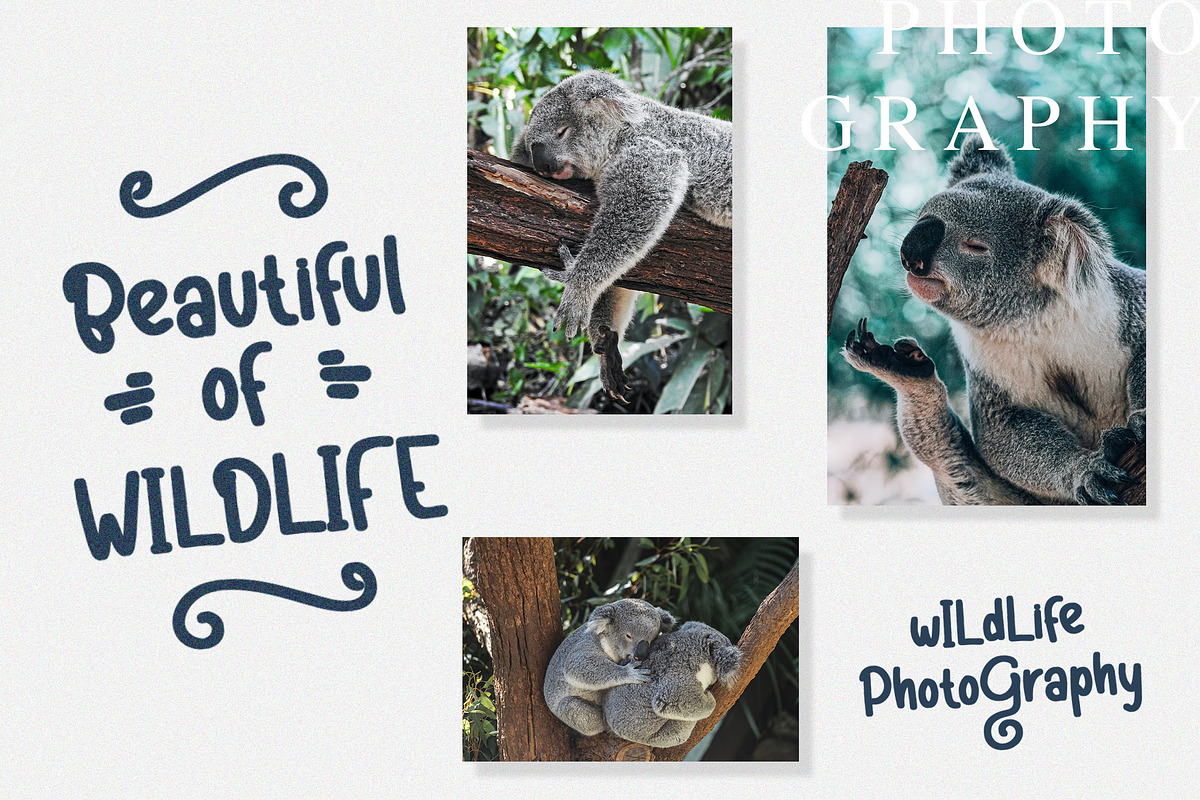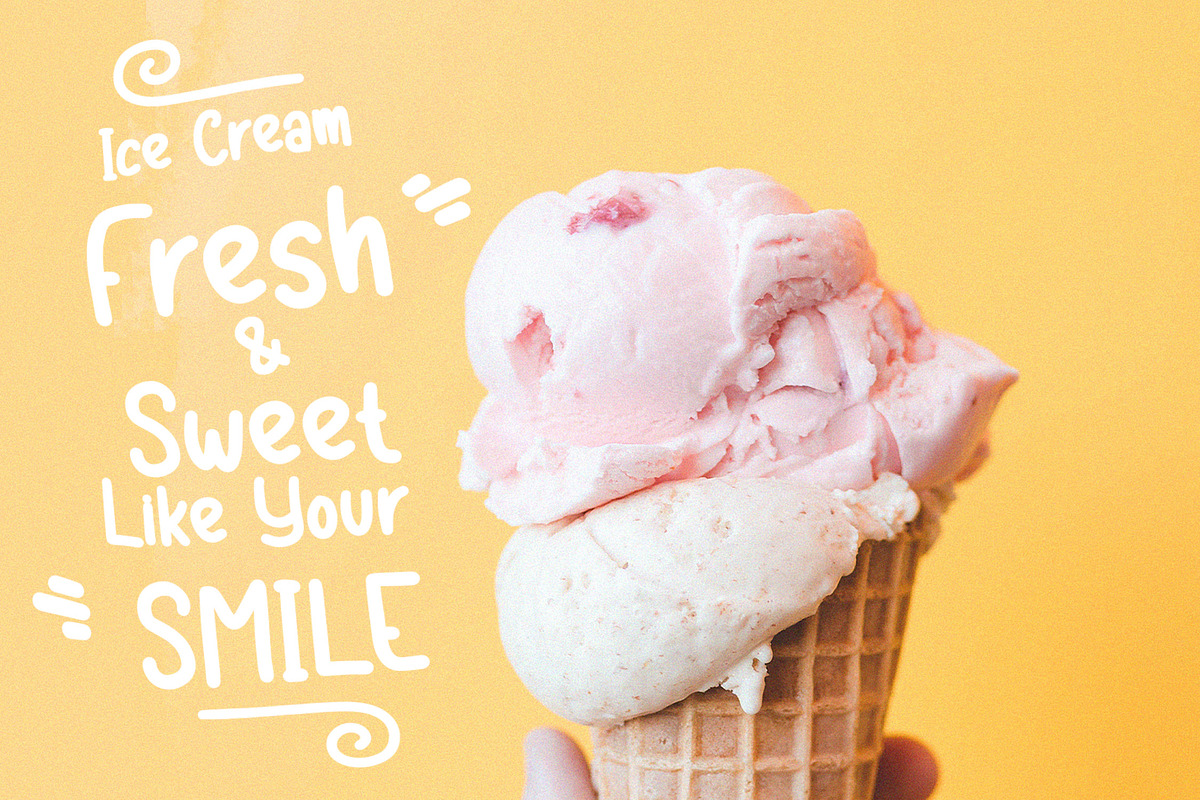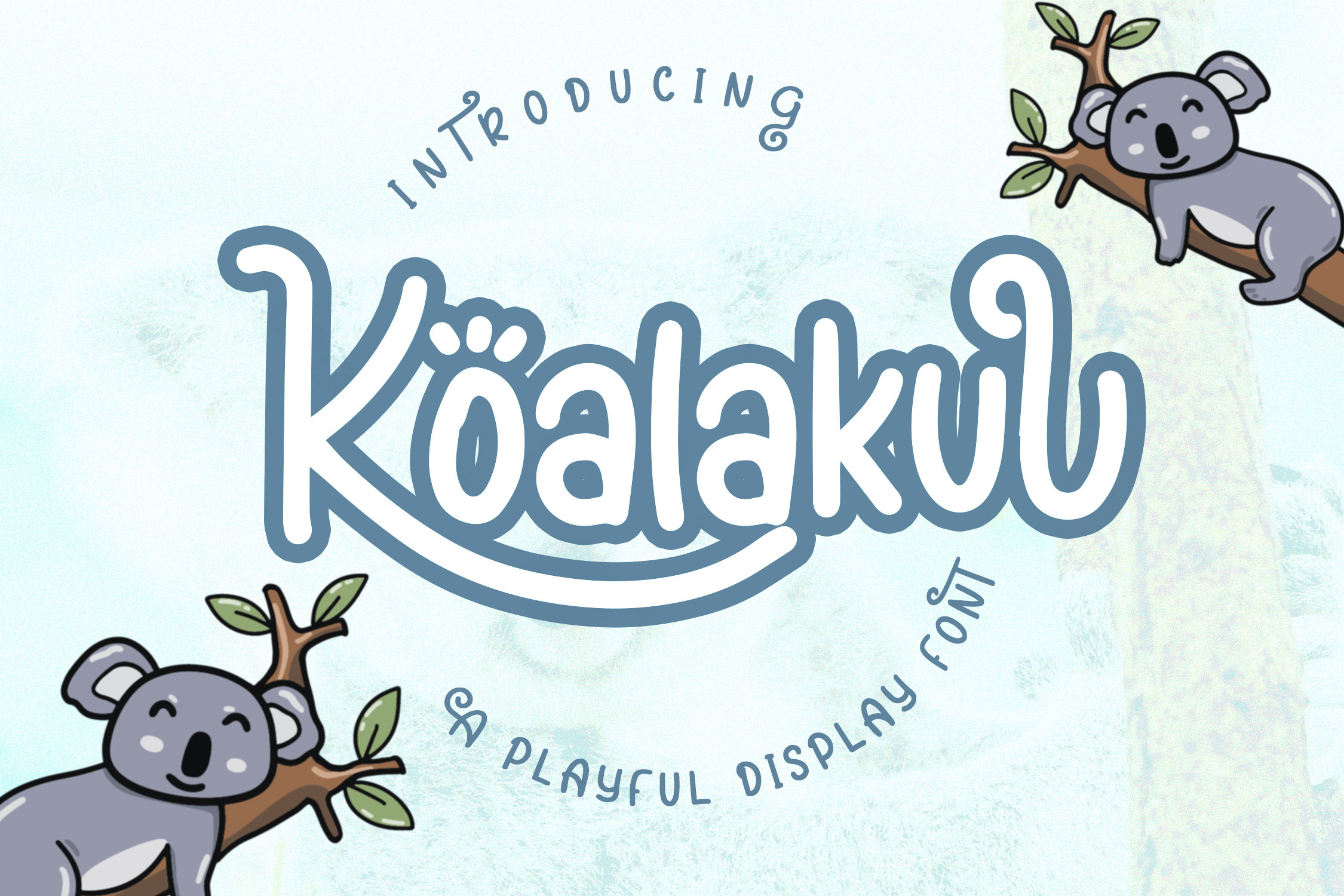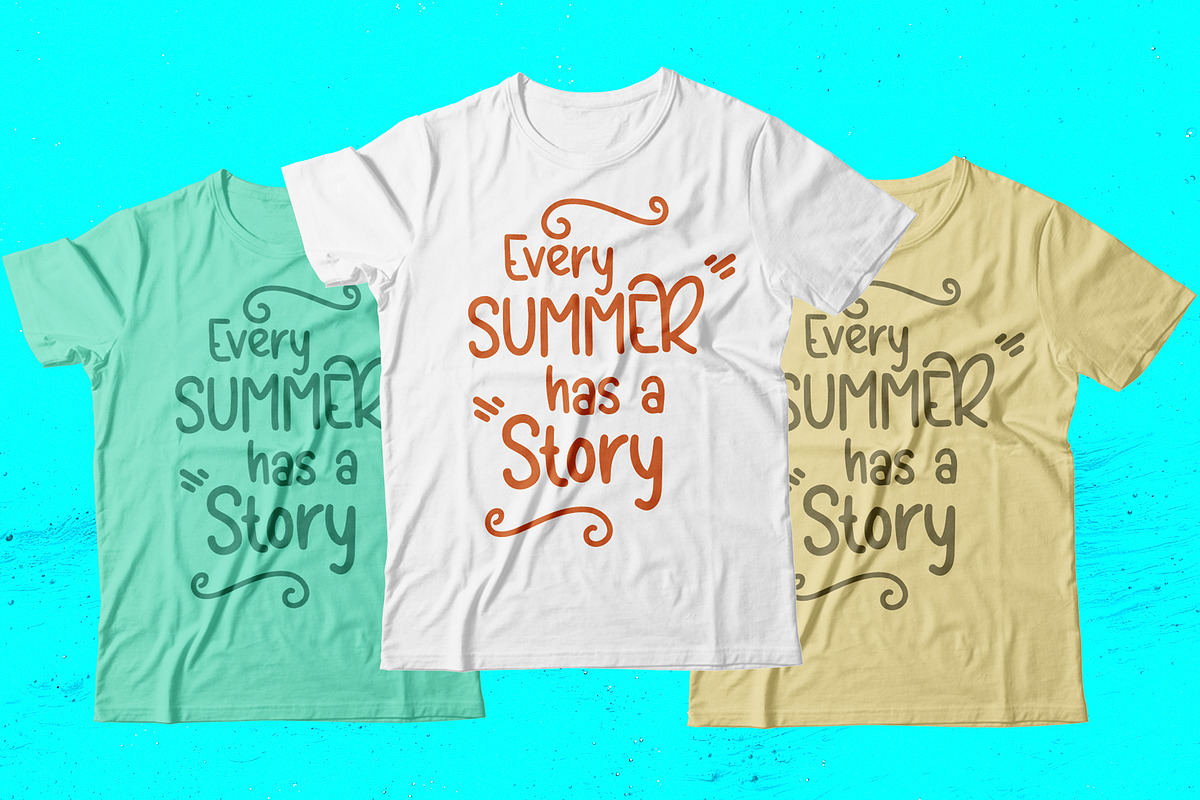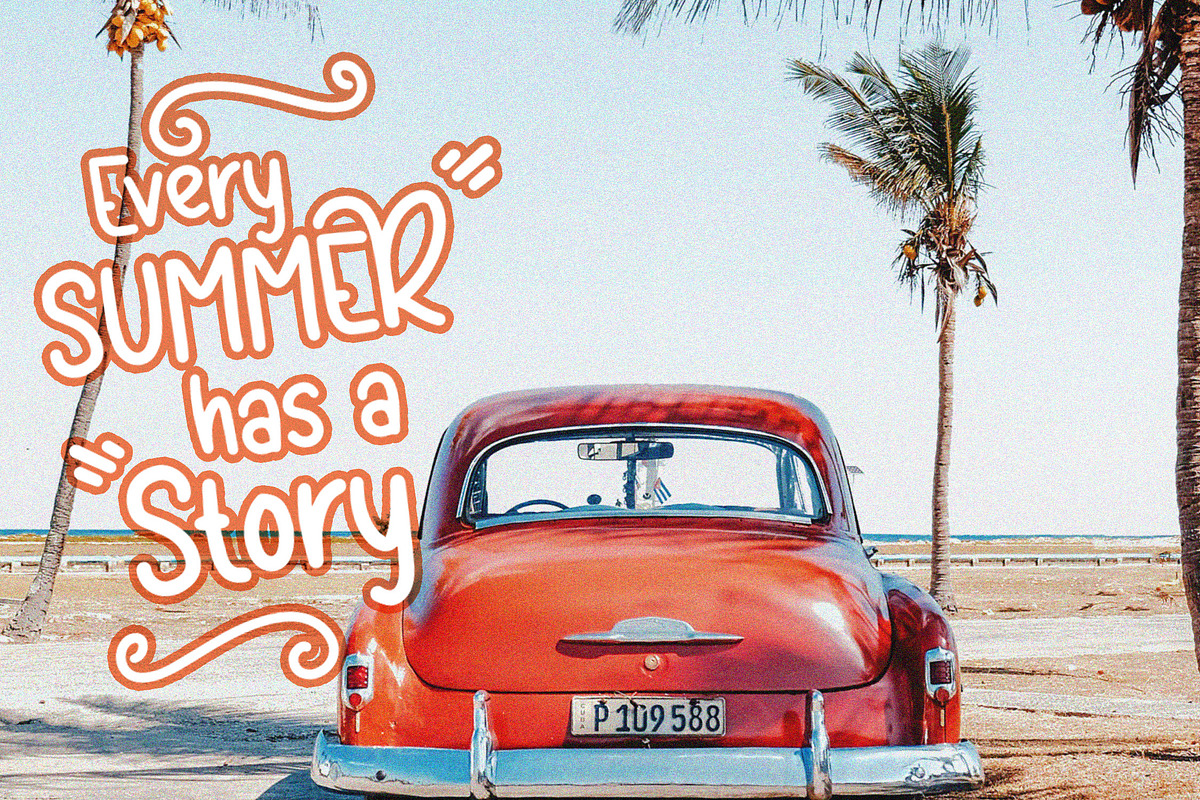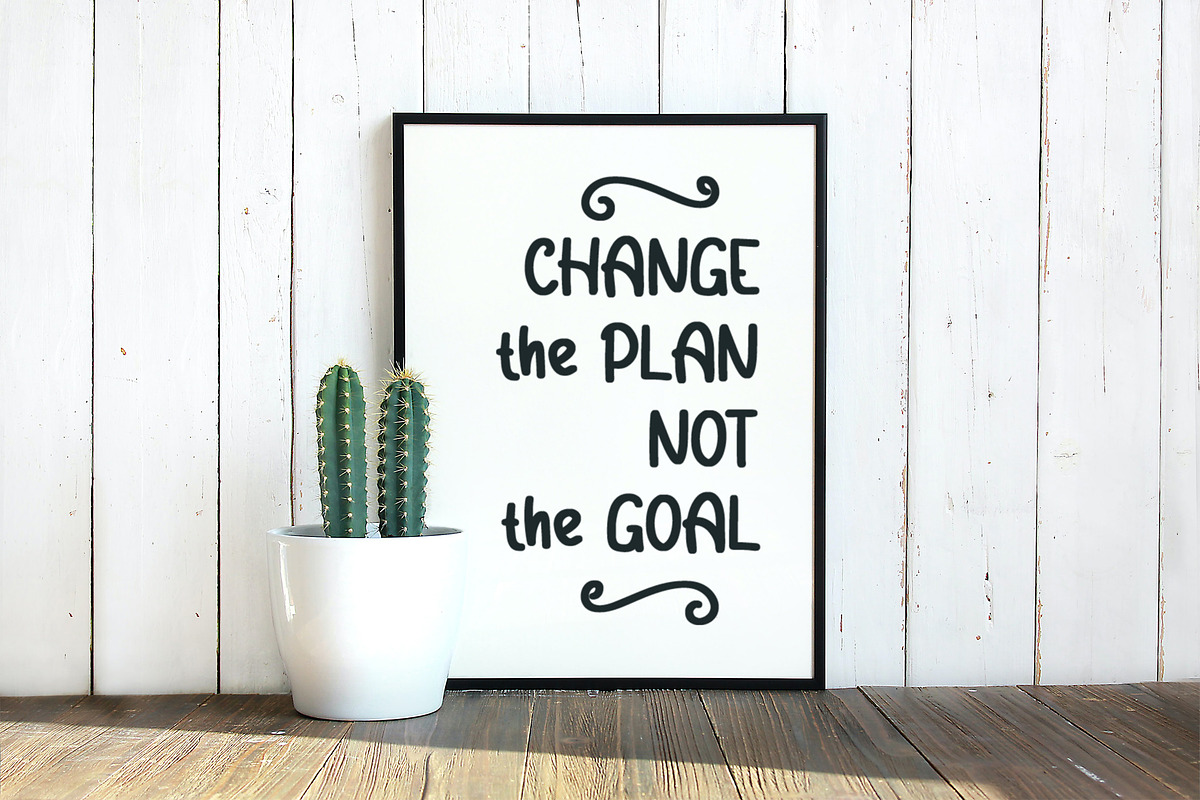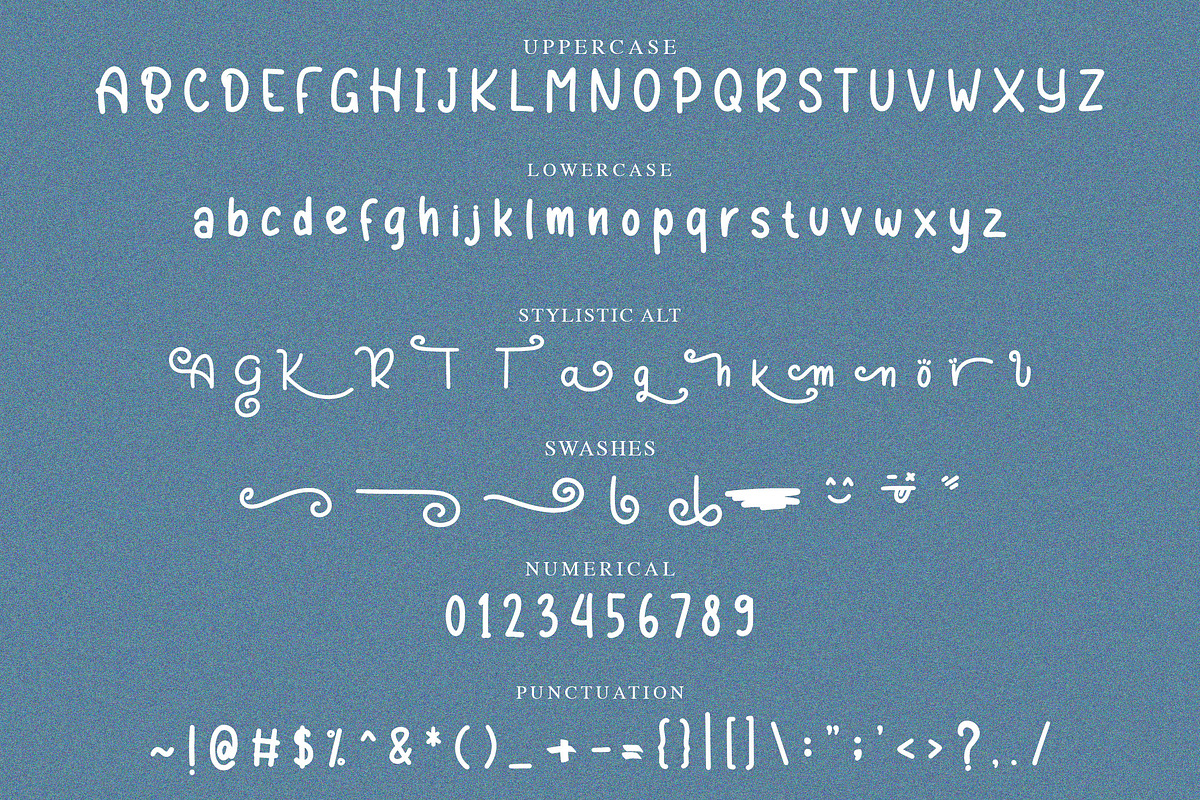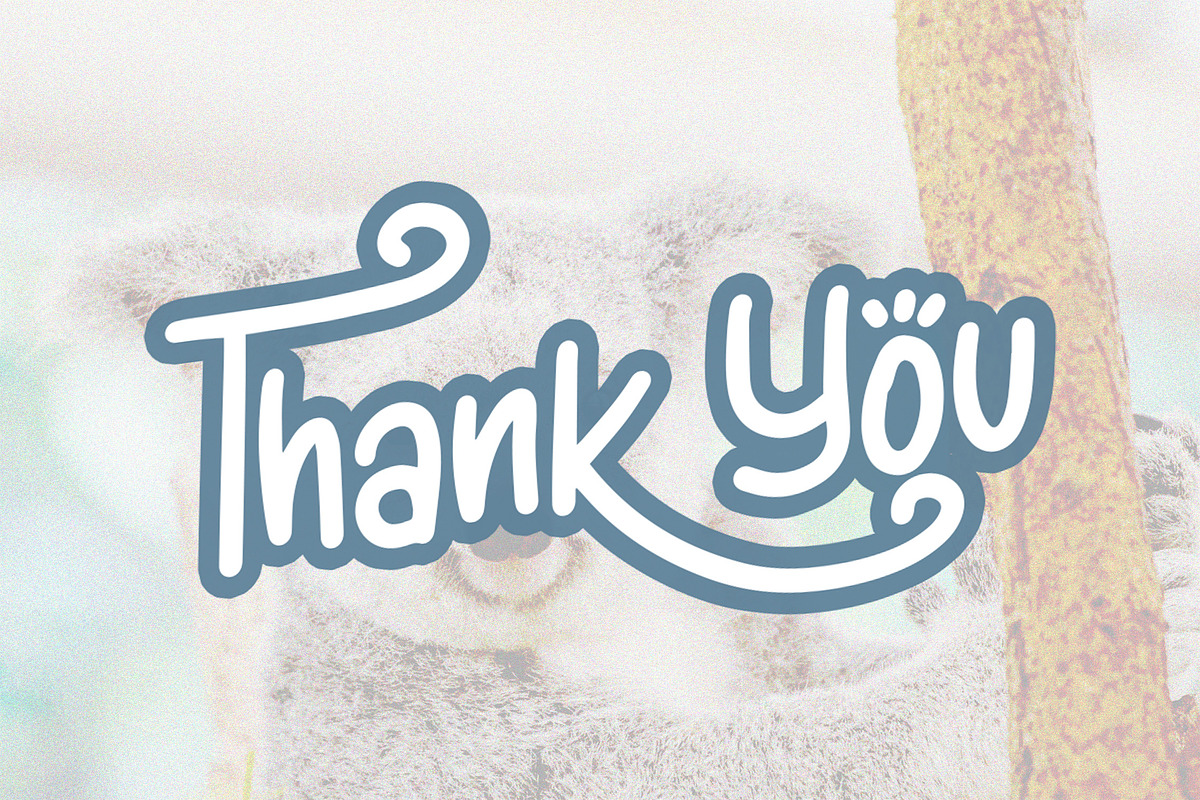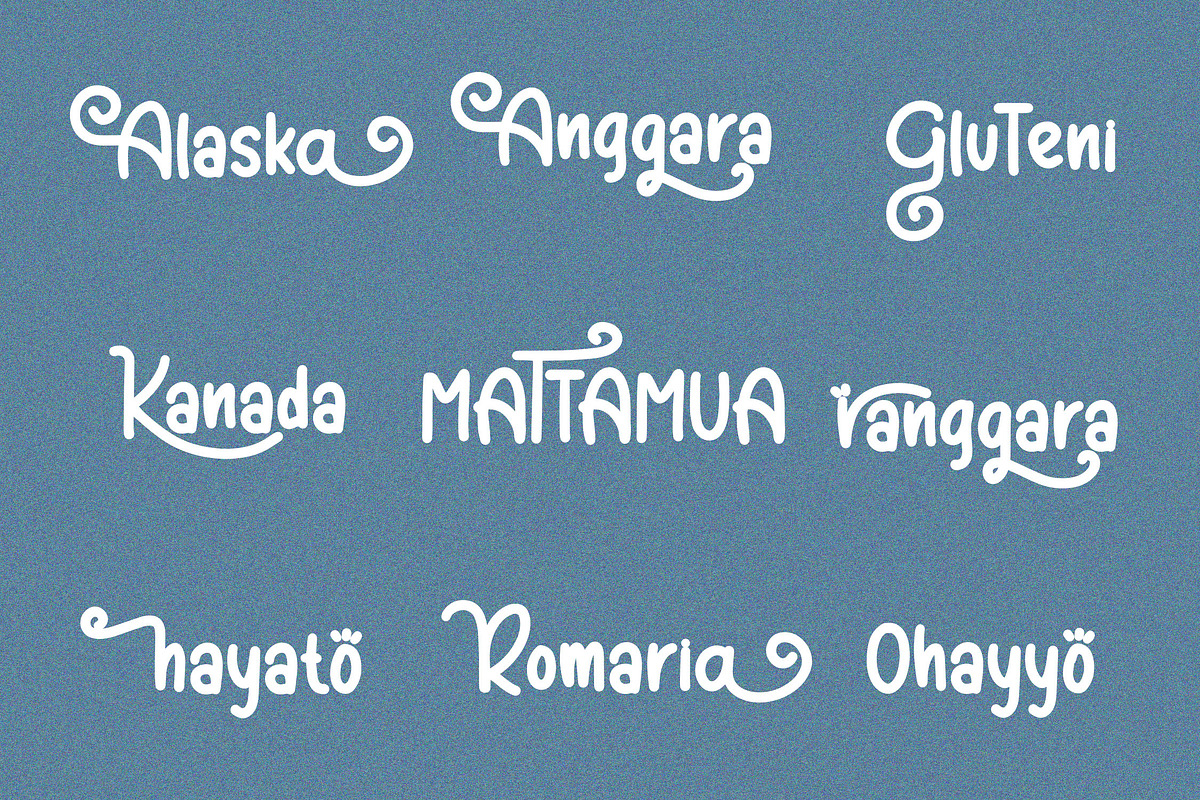
Koalakuu - Playful Font
Koalakuu is a playful display font with a fun and childish style. This font is designed with a very fresh and fun theme. Can be applied to support the graphic appearance of the product to be more attractive and unique. This font is suitable for making previews and covers, Child logo designs, shirt designs and other graphic needs. Made with hand scratches directly and then processed into font processing software.
Koalakuu font with uppercase characters A-Z, lowercase characters a-z, punctuation, swashes and stylistic alternate characters that enhance this font shape.
-Swashes
-Stylistic Alternate